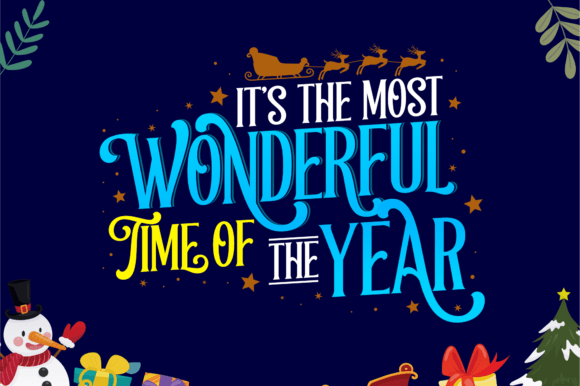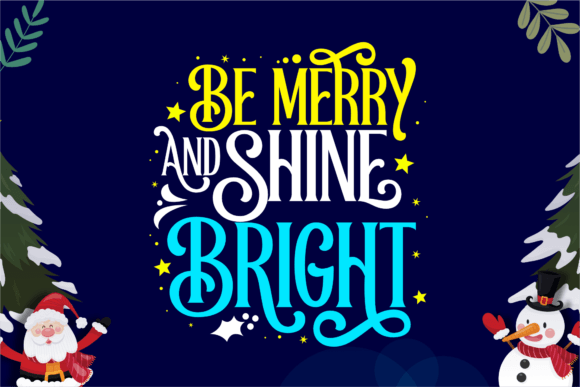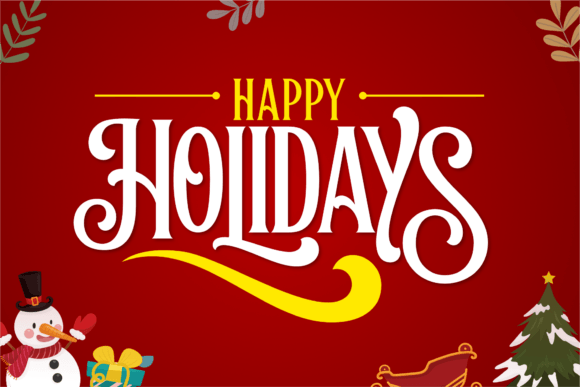
Introduction to Christmas Mother Font
Christmas Mother is a festive and incredibly classy display font.
It is ideal for any of your winter break & christmas creations so add it to your designs and bring them to life Christmas Mother is PUA encoded which means you can access all of the glyphs and swashes with ease.
Key Features of Christmas Mother Font
Why Choose Christmas Mother Font?